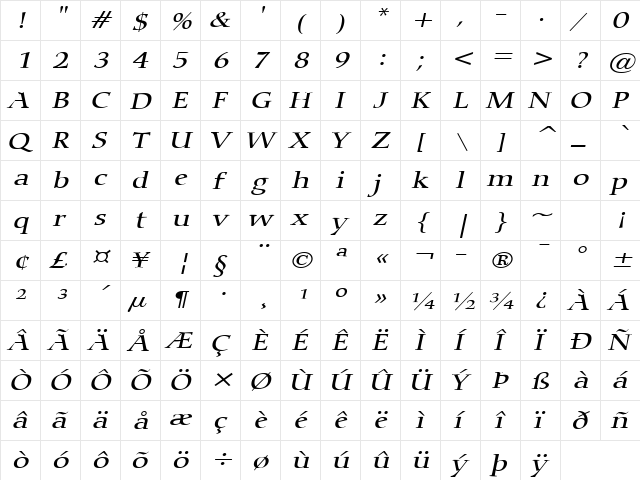
Carmine Wide Italic
Design Context for Carmine Wide Typeface
Carmine Wide takes a measured approach to typography — its balanced proportions and neutral character make it a reliable workhorse for both digital and print work. The dynamic lean of this cut emphasises speed and emphasis in any layout.
Pro Tip: Use Carmine Wide for emphasis, pull quotes, and subheadings where its slanted energy can add rhythm to the layout.